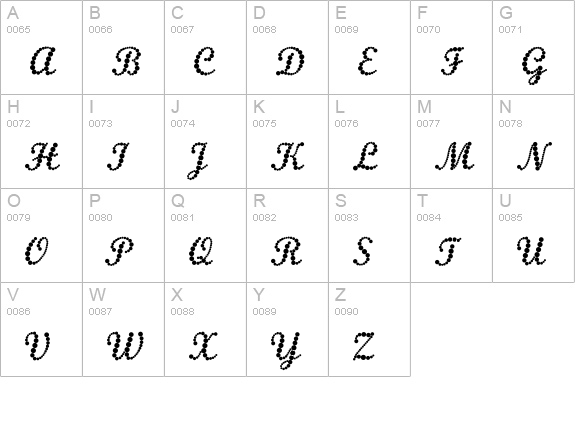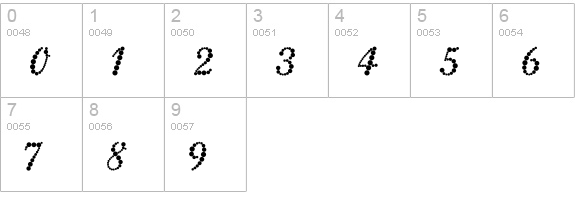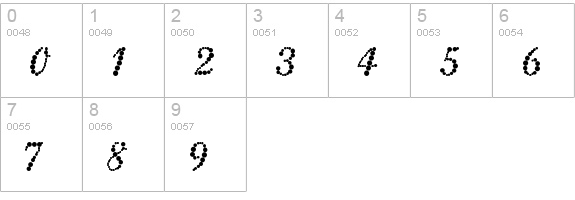
Pearlie Font Details
Introducing Pearlie font, a charming and versatile typeface that brings a touch of elegance to any project. With its delicate curves and sophisticated style, Pearlie is perfect for adding a graceful and refined look to your designs. Whether you're working on invitations, branding, or editorial projects, Pearlie will elevate your work with its timeless appeal. The best part? Pearlie font is completely free to download at FontsMarket.com! Take advantage of this beautiful typeface without any cost and enhance your designs with its unique flair. Don't miss out on the opportunity to add Pearlie font to your collection and elevate your creative projects to the next level. Download now and start exploring the endless possibilities that Pearlie font has to offer.